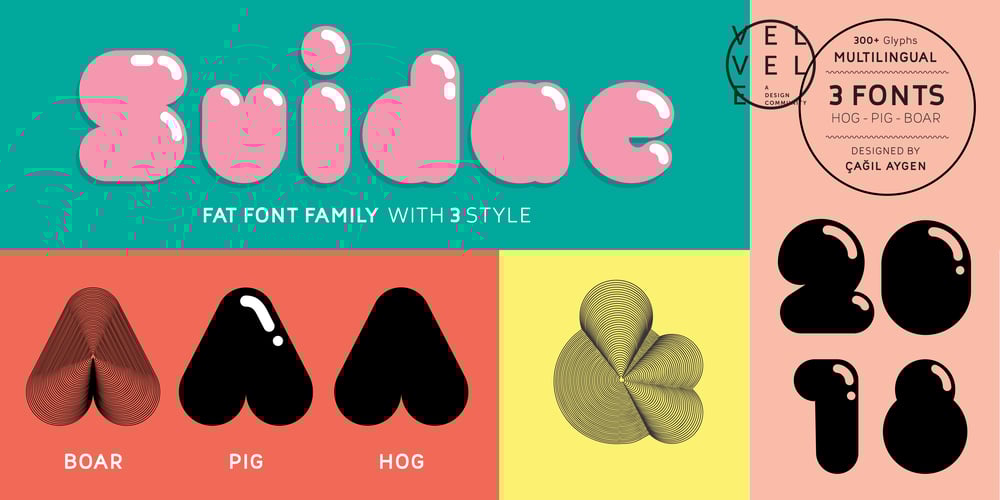
Suidae Font Family was designed by Çağıl Aygen and published by vve.type. Suidae contains 3 styles and family package options. Suidae is a fat font family, combined from 3 different style. It’s fresh, friendly, fun and full of surprises waiting for you to be discover!. It is also a great mix of boldness and cuteness, so it definitely captures attention while keeping the minimal form of letters. Plus, Suidae is an effective font family for creating amazing headlines, logos & posters with a custom-made feeling.